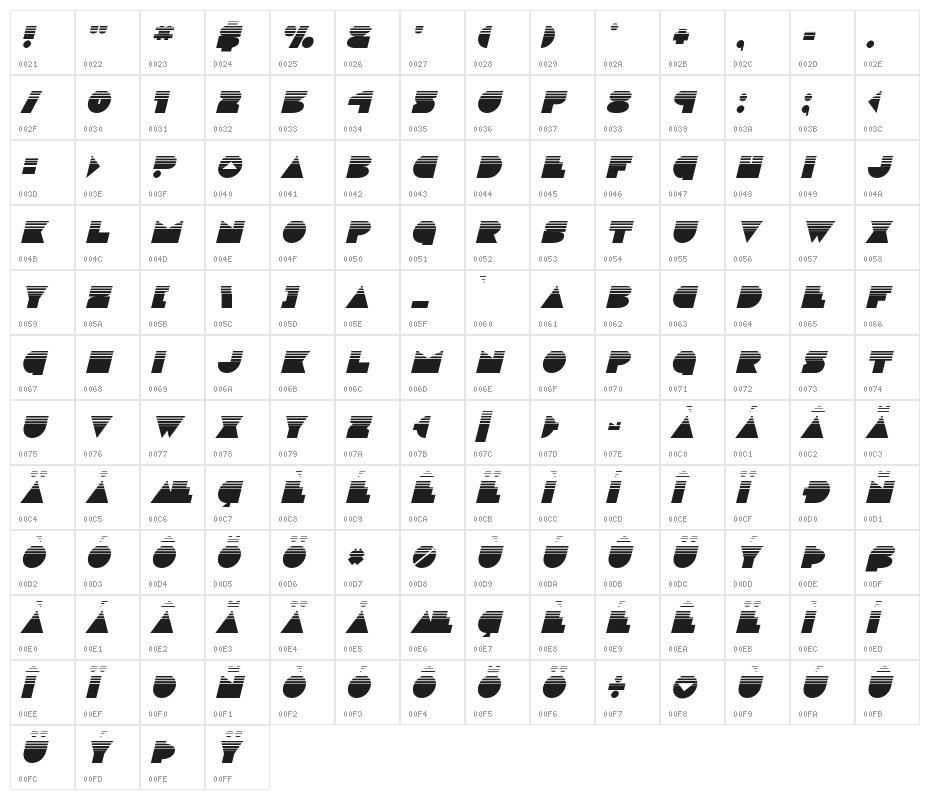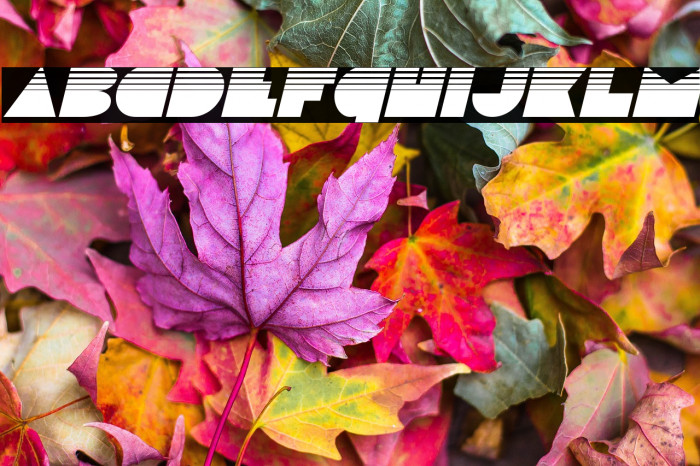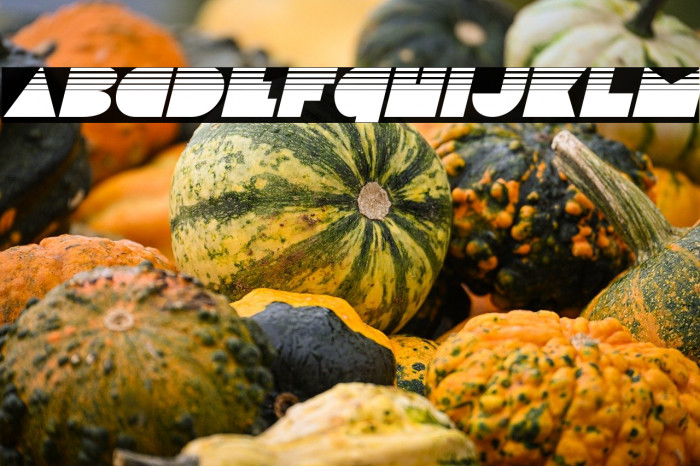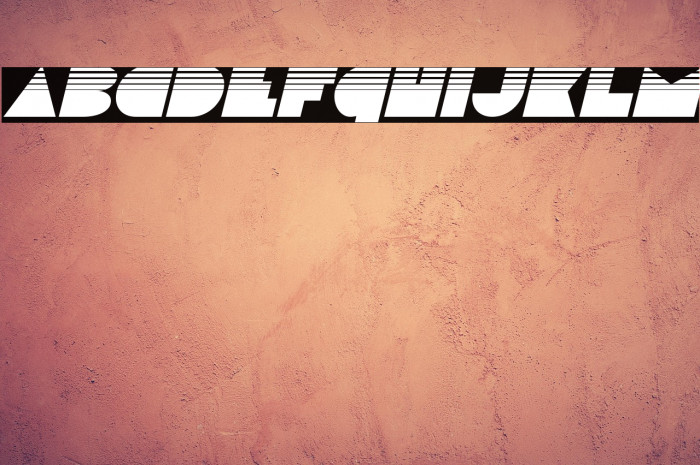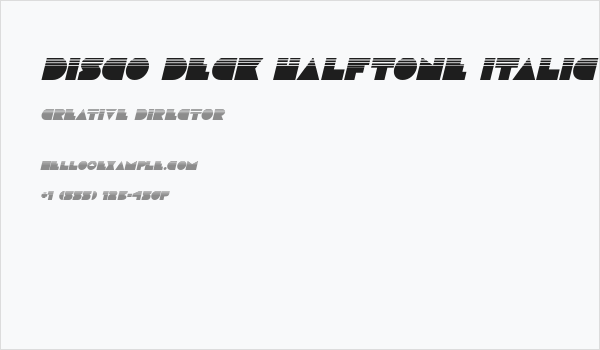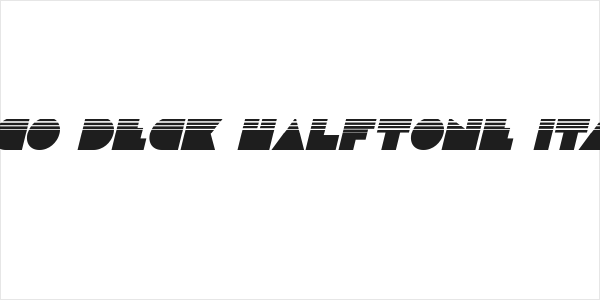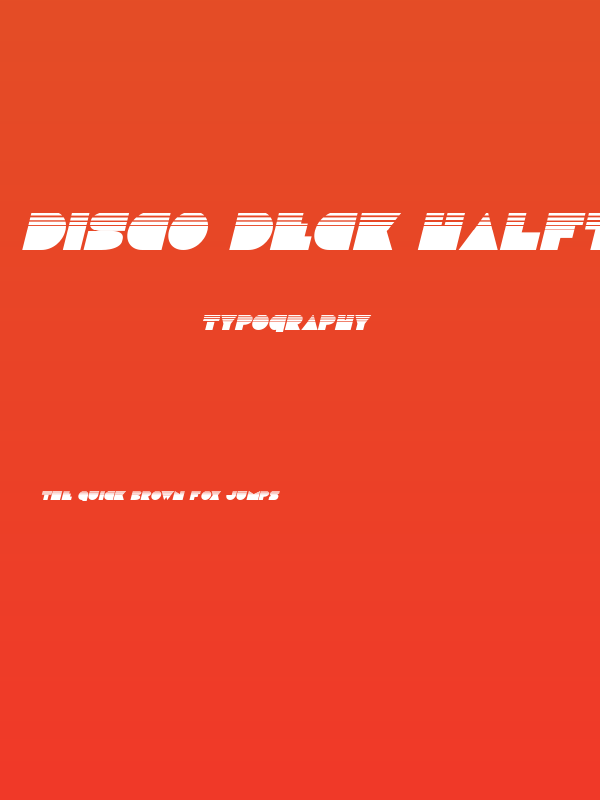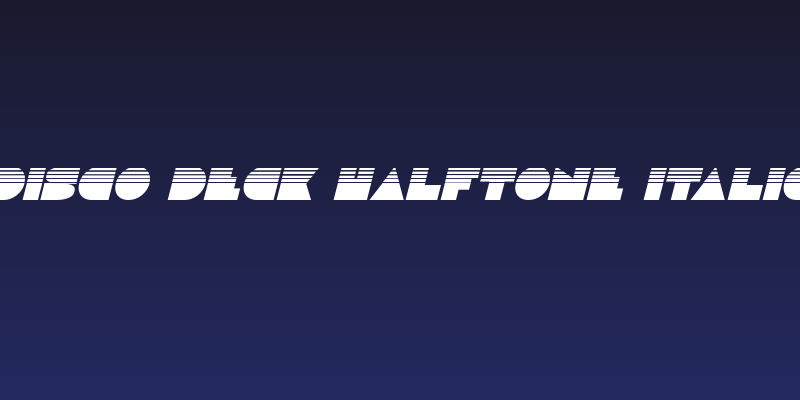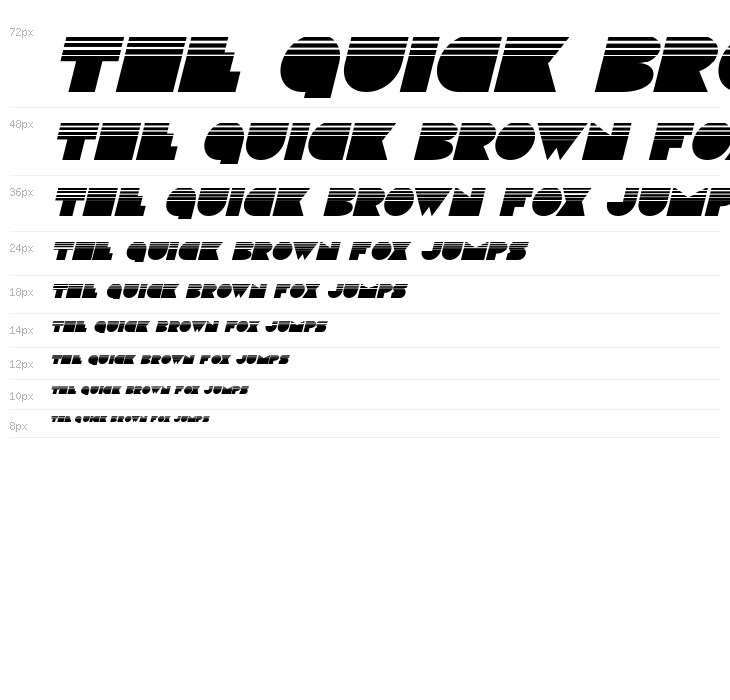
Disco Deck Halftone Italic Font
Disco Deck Halftone Italic Description
This font features a bold, dynamic style with a distinct halftone effect that gives it a retro, futuristic vibe. The characters are italicized, adding a sense of motion and energy. The uppercase and lowercase letters maintain a consistent design, with strong geometric shapes and a unique striped pattern that creates a sense of depth. The numbers and special characters follow the same design principles, ensuring a cohesive look across all elements. This font is perfect for projects that aim to capture a sense of nostalgia while still feeling modern and fresh.
| Overall Style | Retro, Futuristic |
| Proposed Projects | Ideal for music album covers, retro-themed posters, event flyers, and branding for creative industries. |